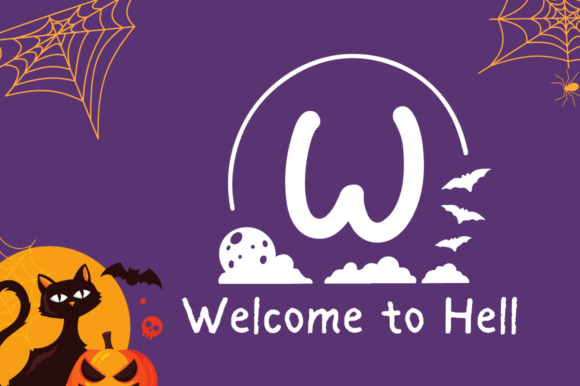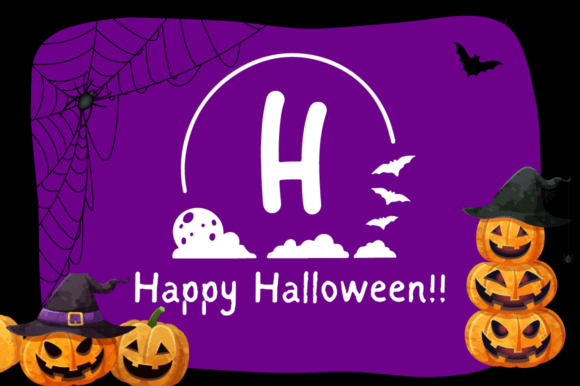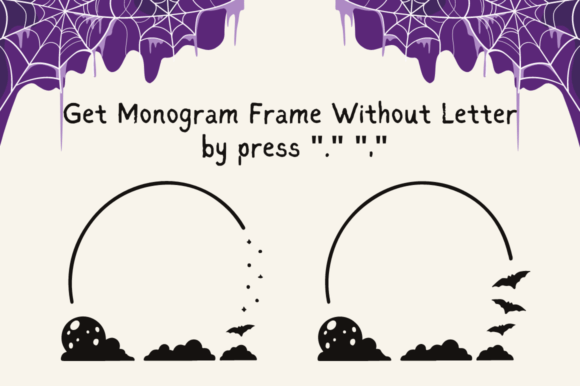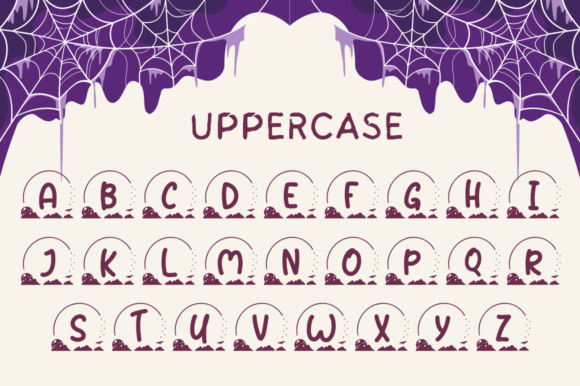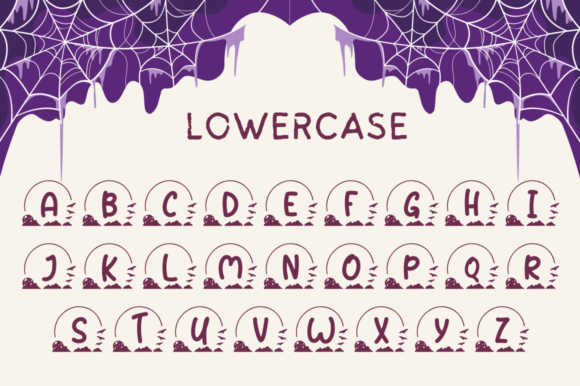
Introduction to Nocturnal Halloween Monogram Font
Nocturnal Halloween is a Halloween-themed monogram font, spooky, scary & perfect for your Halloween special occasions, business designs, logos, branding, social media posts, and wedding cards.
Key Features of Nocturnal Halloween Monogram Font